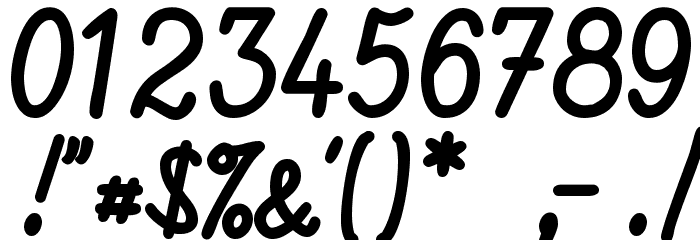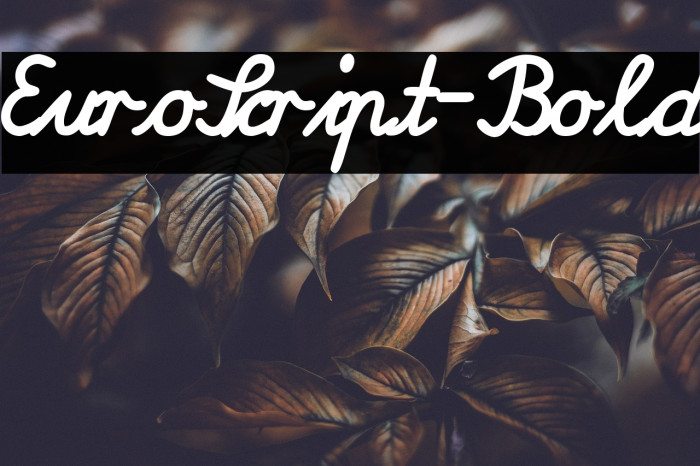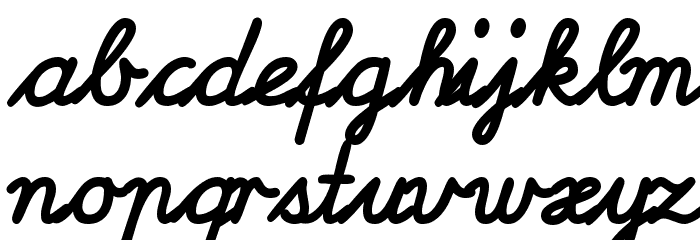
EuroScript-Bold Font
EuroScript-Bold Description
This font exudes a lively and dynamic character with its bold, cursive style. The letters are interconnected, creating a fluid and continuous flow that mimics natural handwriting. The uppercase letters maintain a consistent height, while the lowercase letters vary slightly, adding to the handwritten feel. The numerals and special characters are designed to match the script's playful and informal tone. Its bold strokes and smooth curves make it highly legible, while the overall design retains an elegant and sophisticated appearance.